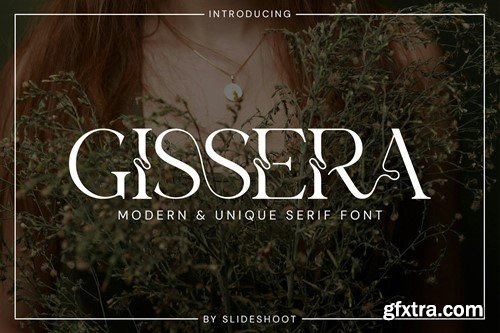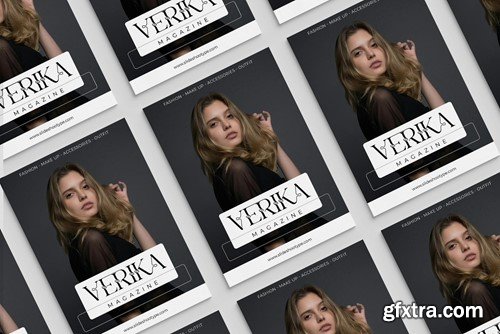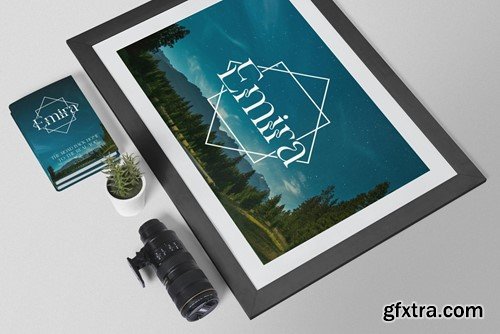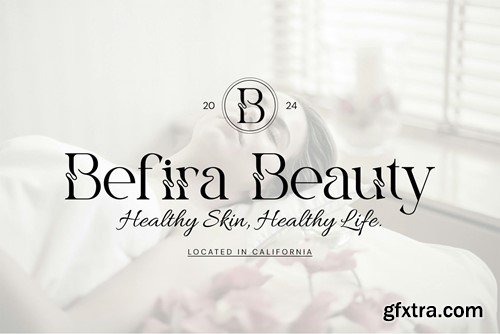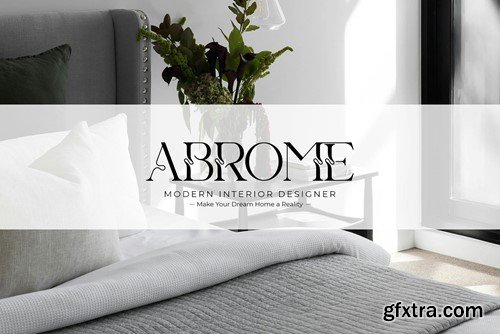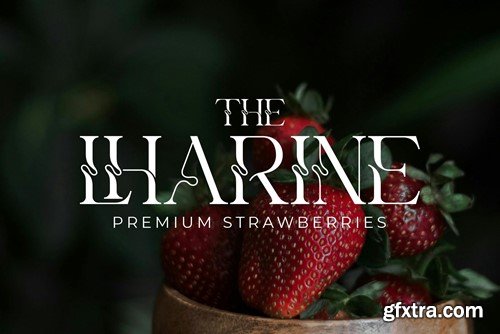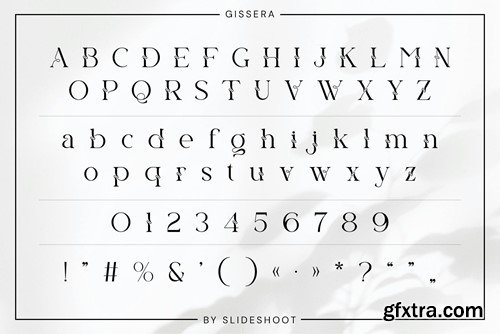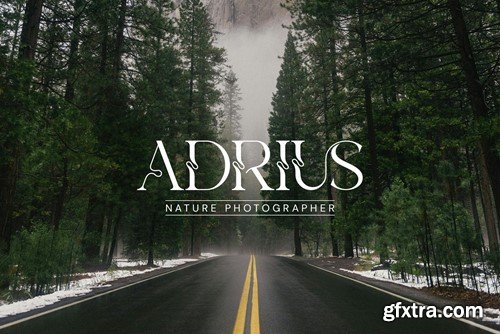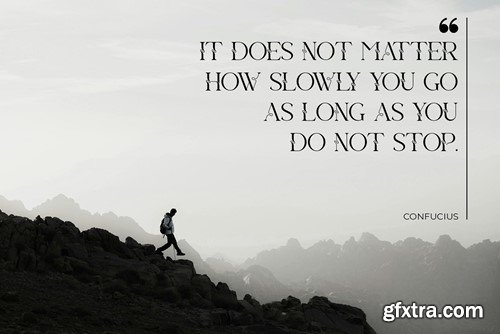
Gissera Serif Font KYZ4PDS
Gissera Serif Font
Gissera Serif is a balanced, smooth, elegant and stylish serif font. He has a beautiful character. It fits perfectly with invitation card designs, company logos, movie titles, movie names, business cards, book titles, brand names and various other designs. Gissera Serif is a subtle serif font that exudes sophistication and elegance. Its stylish alternations and ligatures make this font the perfect partner for any project.
• Ligature